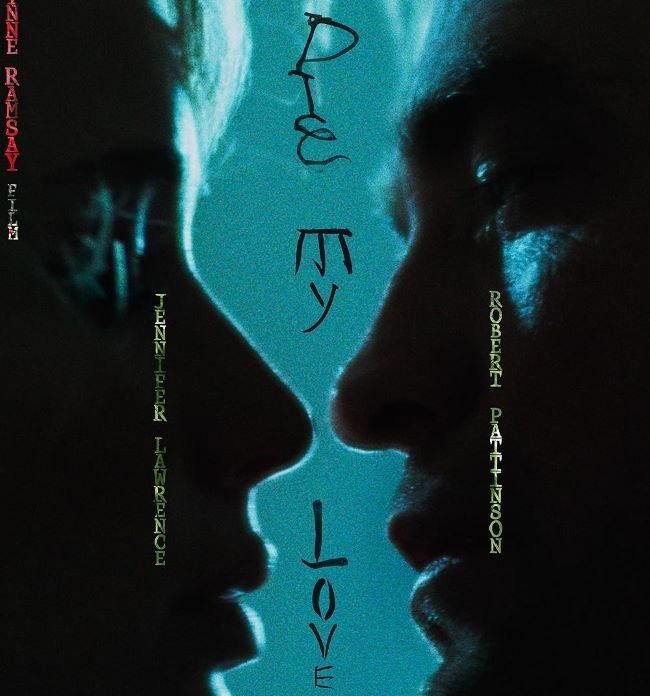
Die My Love Font
Die My Love font — the closest match is Architype AD 2014, available commercially, with no free download — is the typography of a 2025 Oscar-nominated film that places its title’s contradiction front and centre: love and death in the same breath, tenderness and devastation as a single compound proposition. The letterforms that best approach this material carry the same dual quality — thin, graceful, quietly fragile on the surface, but with subtle sharp edges that introduce an undercurrent of intensity that the initial elegance was concealing. Architype AD 2014’s particular formal character — architectural precision meeting handcraft delicacy — makes it the closest available approximation of this haunting, emotionally layered typographic register.